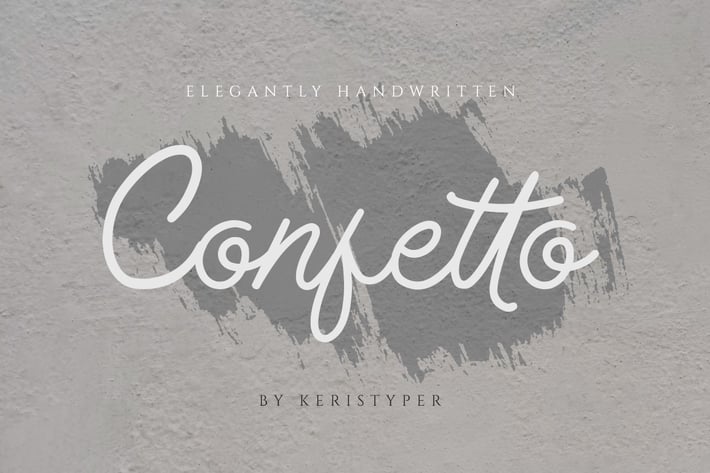
Confetto Monoline Elegantly Handwritten Font
Confetto is a high-quality monoline script font with strokes inspired by an adventurous vibe and vintage design. Plus it features OpenType with Stylistic Alternates, Ligatures, Stylistic sets, which allows you to mix and match letter pairs to match your designs. This font is great for vintage designs, t-shirts, logos, labels, badges, posters, and more.
Confetto font multilingual support:
Afrikaans, Albanian, Catalan, Danish, Dutch, English, Estonian, French, Finnish, German, Icelandic, Indonesian, Italian, Malay, Norwegian, Portuguese, Spanish, Swedish, Zulu, and many more.